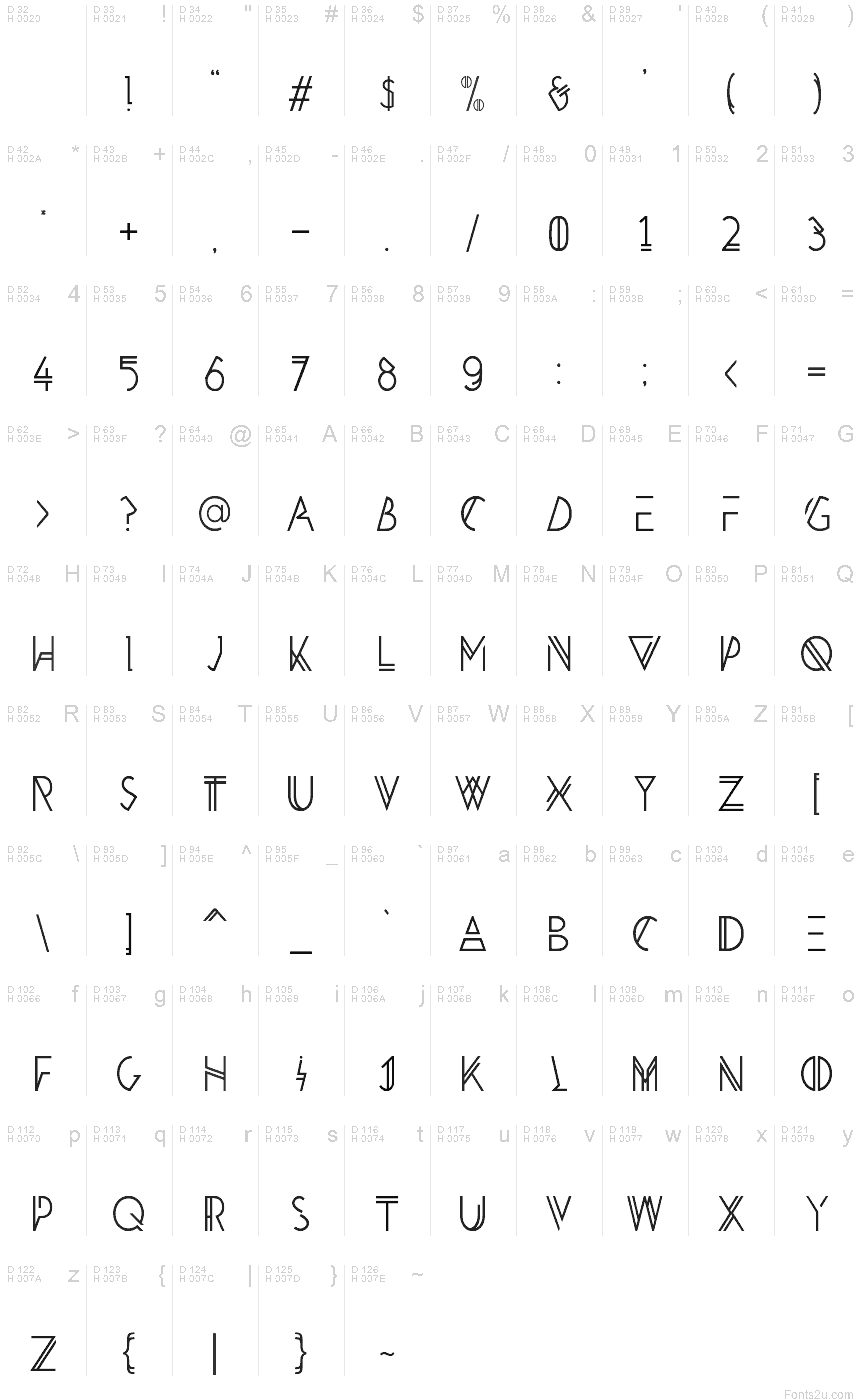
Penultimate
Penultimate is an experimental, modern sans serif, display typeface built on HBM Ultimation font family. With atypical character alternatives and clean cut edges as found with HBM Razed, Penultimate is a perfect typeface for posters, logos, titles and more!
Penultimate - a modern experimental typeface